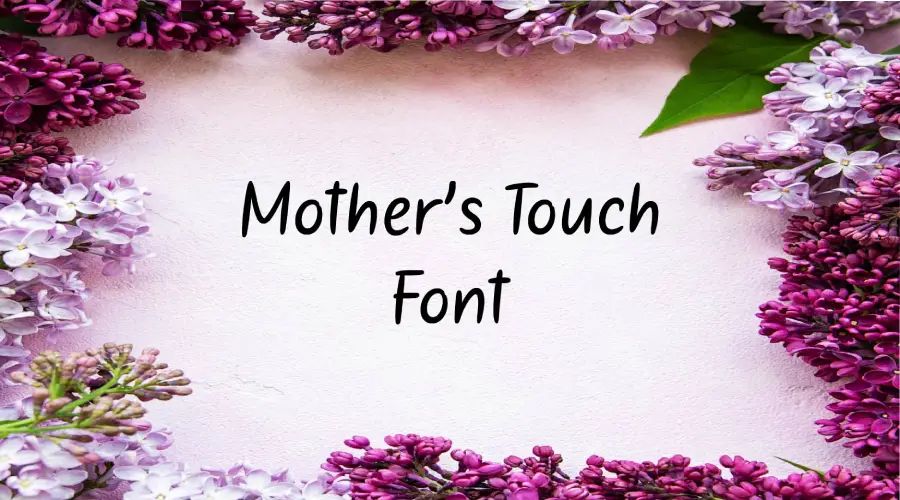
Mother’s Touches Font
Today I’m going to show you a great Script and handwritten font called Mother’s Touches Font, which was last updated on February 5, 2019. This font was designed by Situjuh Nazara and published by 7NTypes, a font design studio based in Indonesia.
In honor of Mother’s Day, the font is being used on billboards and greeting cards. Mother’s Touches Font is also great for logos, branding, invitations, stationery, wedding designs, invitations, logos, business cards, covers, t-shirts, and social media posts, among other things. It will also be utilized to generate a stunning image, as well as text in a variety of colors and styles.